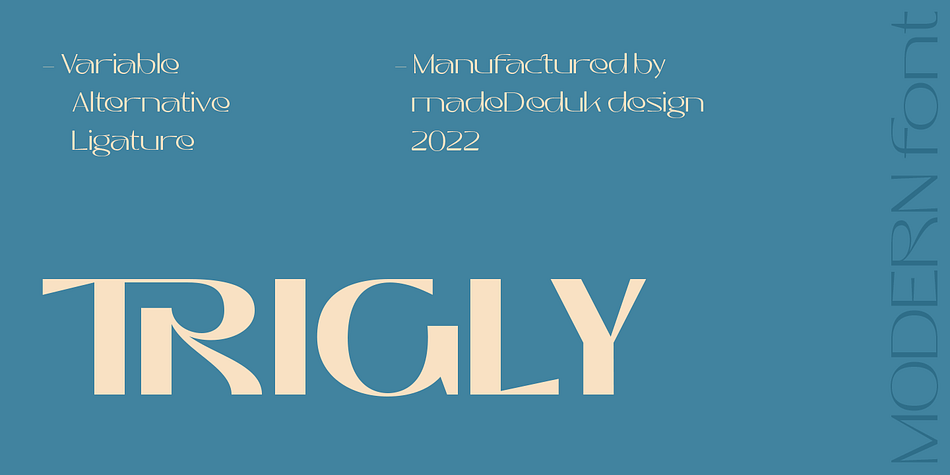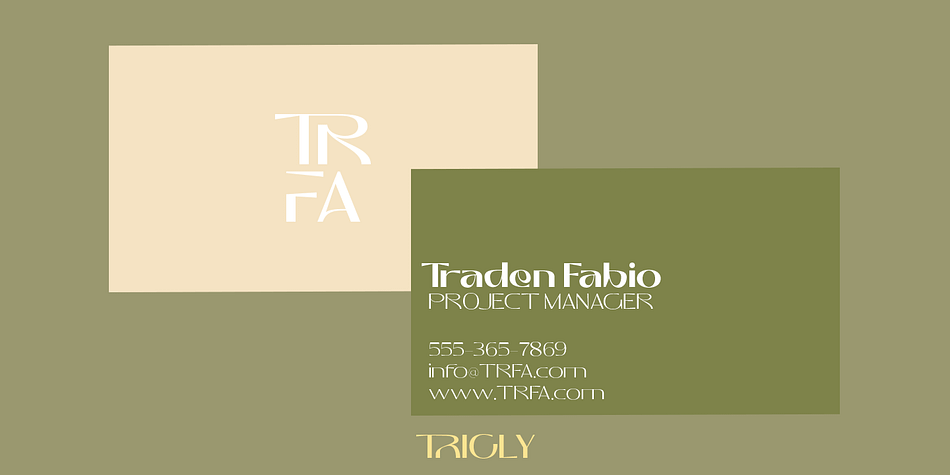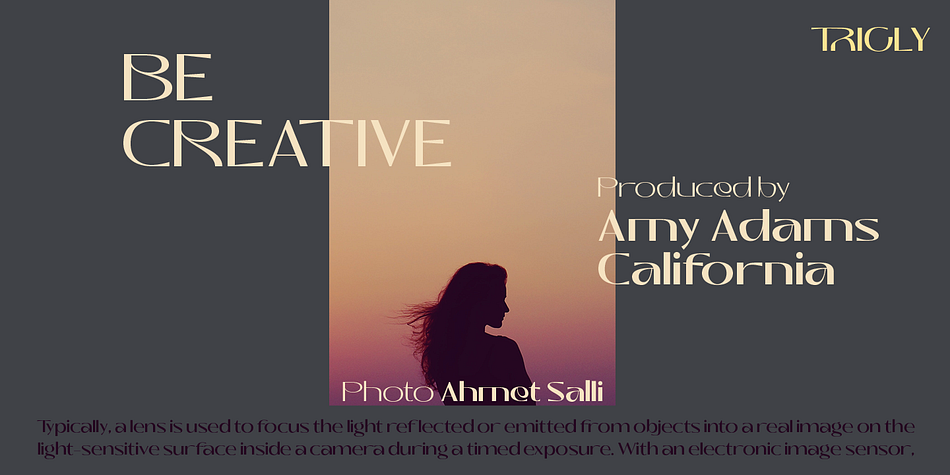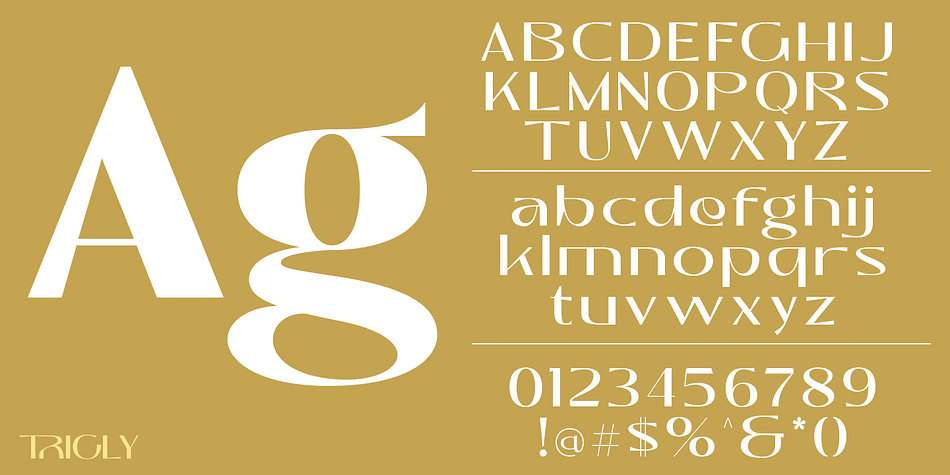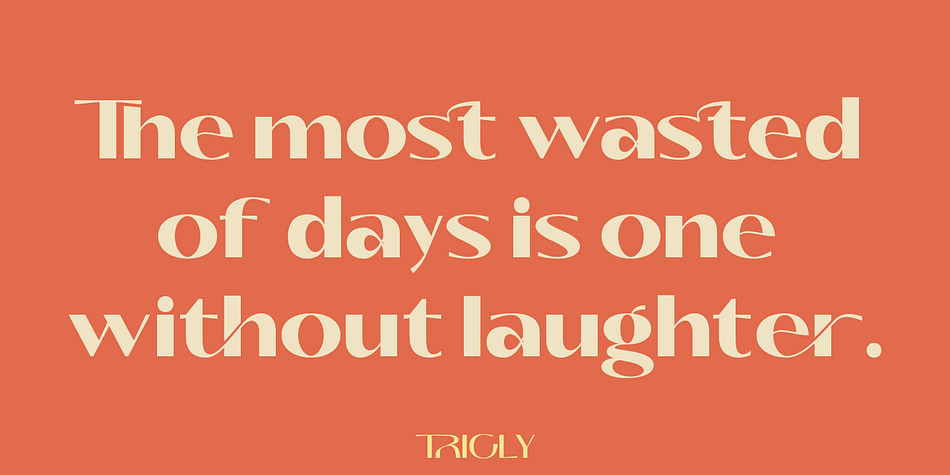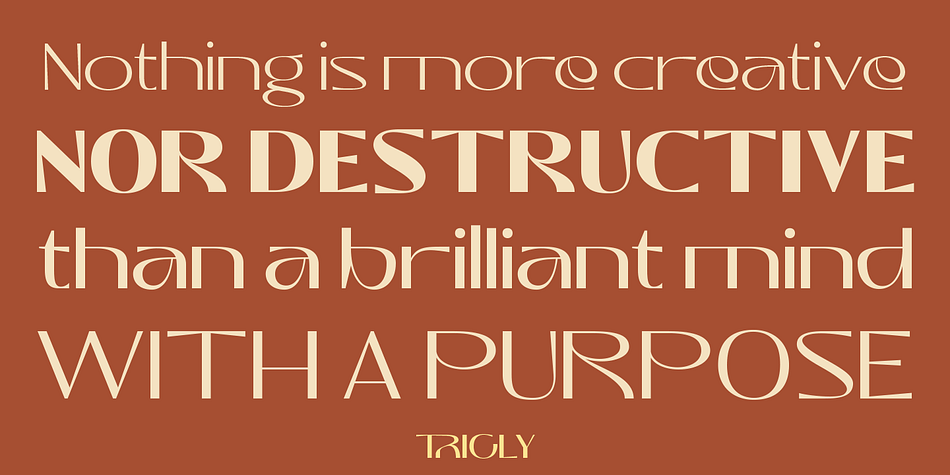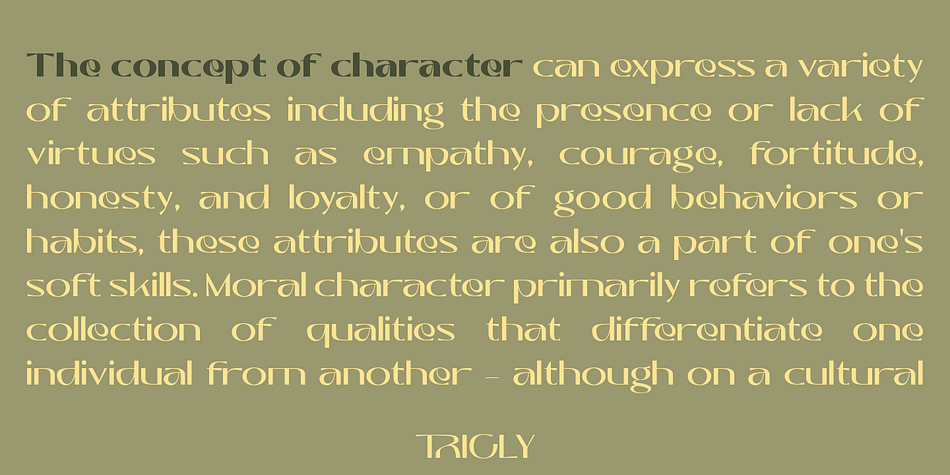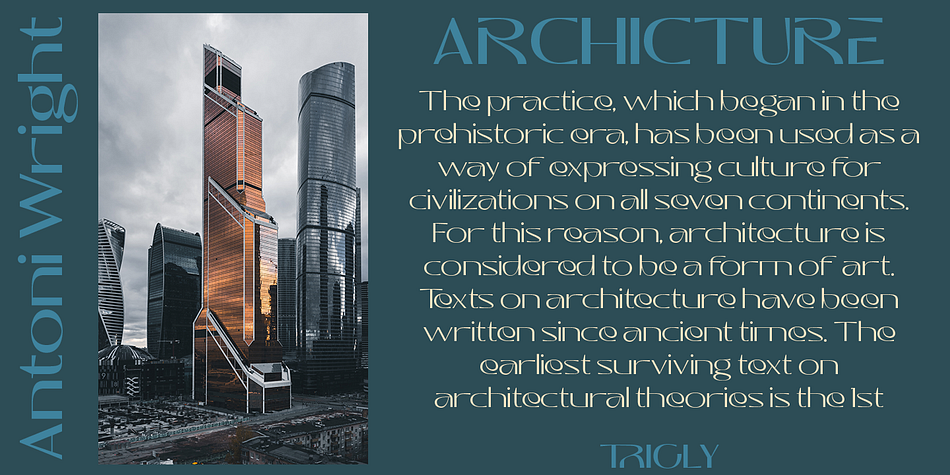
Trigly
Designed by Suandana Ipandemade, Trigly is a sans serif font family. This typeface has nine styles and was published by madeDeduk.
Trigly is an elegant sans serif, simplistic, high-contrast sans that is at home in high-end fashion and cultural environments comes in nine weights with various width and weight that you can explore and combine. use this font for any branding, product packaging, invitation, quotes, t-shirt, label, poster, logo etc.
Uppercase & Lowercase
Number & Symbol
International Glyphs
Multilingual support
Foundry madeDeduk
Designer Suandana Ipandemade